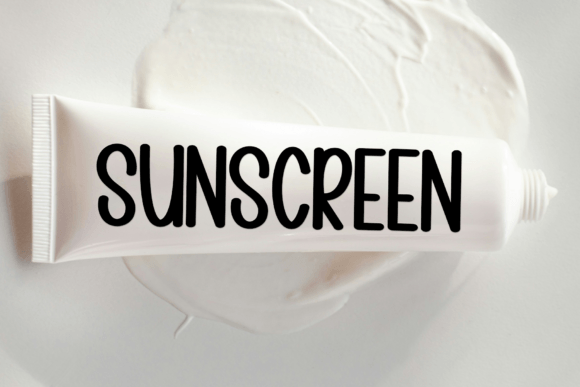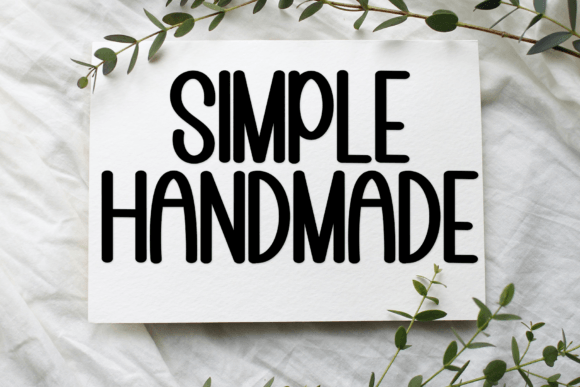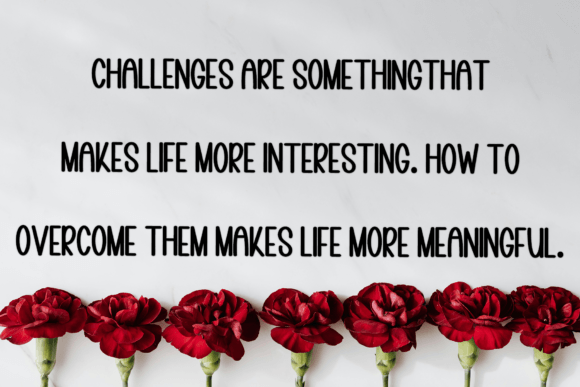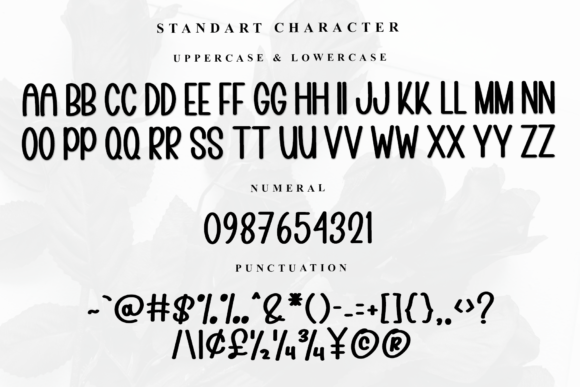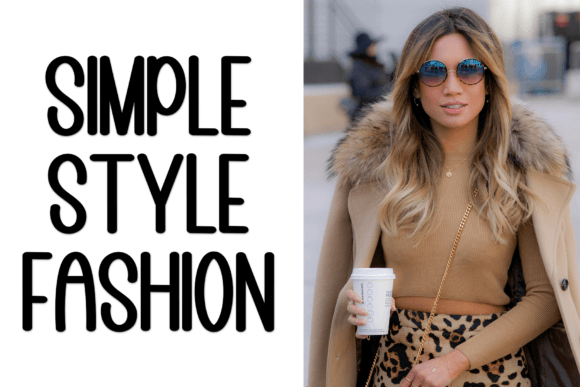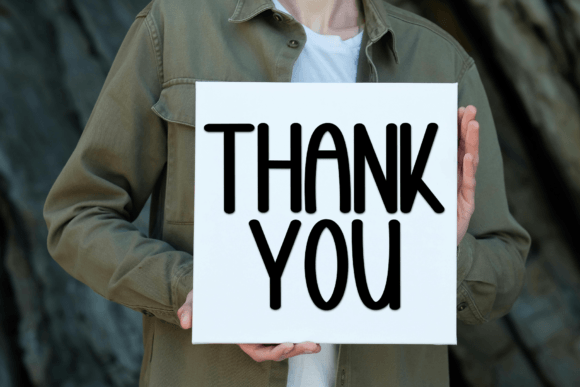
Introducing Banana Font: The Perfect Choice for Fun and Playful Designs
Are you tired of using the same old fonts for your designs? Look no further than Banana Font, a fun and playful display font that’s sure to add a burst of energy to your projects. With its big, bold letters, Banana Font is perfect for creating eye-catching headlines and cheerful designs that will leave a lasting impression on your audience.
What is Banana Font?
Banana Font is a display font designed to make a statement. Its bold, chunky letters are perfect for headlines, titles, and other design elements where you want to grab attention. The font is highly legible, even at large sizes, making it ideal for use on posters, billboards, and other large-format designs.
Key Features of Banana Font
- Big and bold letters: Banana Font features large, chunky letters that are perfect for creating eye-catching headlines and titles.
- Fun and playful style: The font has a fun and playful vibe that’s perfect for designs that need to convey a sense of energy and enthusiasm.
- Highly legible: Despite its bold style, Banana Font is highly legible, even at large sizes.
- Versatile: Banana Font can be used for a wide range of design projects, from posters and flyers to social media graphics and website headers.
Who is Banana Font for?
Banana Font is perfect for designers and crafters who want to add a touch of fun and personality to their designs. Whether you’re creating designs for a client or working on a personal project, Banana Font is a great choice for:
- Graphic designers: Banana Font is a great addition to any graphic designer’s toolkit, perfect for creating eye-catching headlines and titles.
- Crafters: If you’re a crafter who loves to create handmade cards, gift tags, and other paper crafts, Banana Font is a great choice for adding a personal touch to your designs.
- Social media enthusiasts: Banana Font is perfect for creating engaging social media graphics that will help you stand out from the crowd.
How to Use Banana Font
Banana Font is easy to use and can be incorporated into your designs in a variety of ways. Here are a few ideas to get you started:
- Headlines and titles: Use Banana Font to create bold, eye-catching headlines and titles that will grab attention.
- Posters and flyers: Banana Font is perfect for creating posters and flyers that need to stand out from the crowd.
- Social media graphics: Use Banana Font to create engaging social media graphics that will help you connect with your audience.
- Website headers: Banana Font can be used to create bold, eye-catching website headers that will make a lasting impression on your visitors.
Why Choose Banana Font?
There are many fonts to choose from, but Banana Font stands out from the crowd for several reasons:
- Unique style: Banana Font has a unique, fun, and playful style that’s hard to find in other fonts.
- High-quality design: Banana Font is designed to high standards, ensuring that it’s both legible and visually appealing.
Banana Font is a fun and playful display font that’s perfect for designers and crafters who want to add a touch of personality to their designs. With its big, bold letters and highly legible style, Banana Font is ideal for creating eye-catching headlines and cheerful designs. Whether you’re working on a graphic design project, creating handmade crafts, or designing social media graphics, Banana Font is a great choice. So why not give it a try and see the difference it can make in your designs?